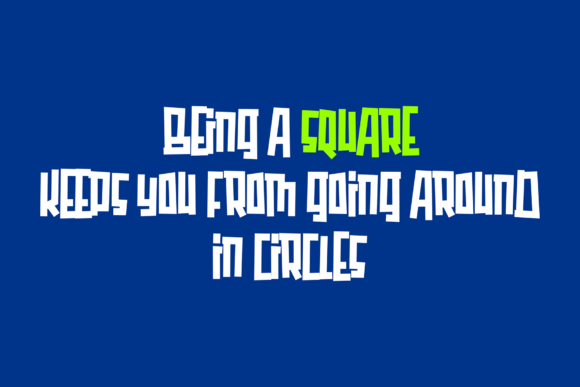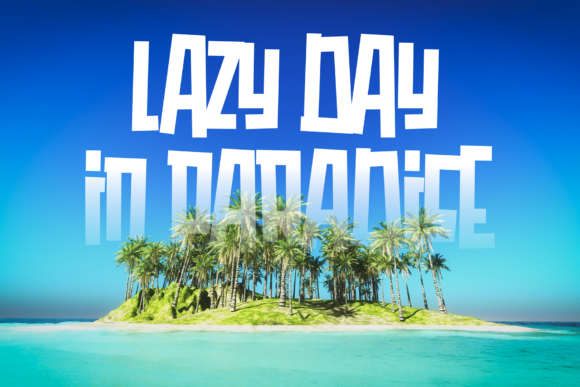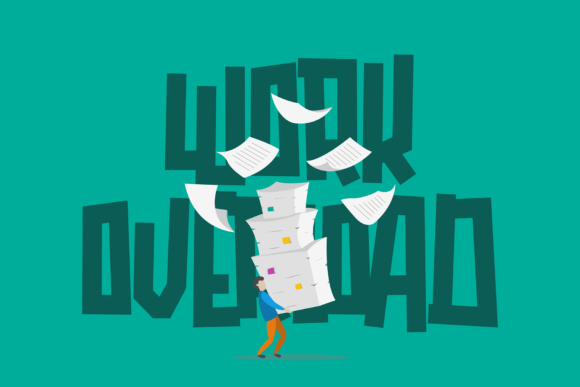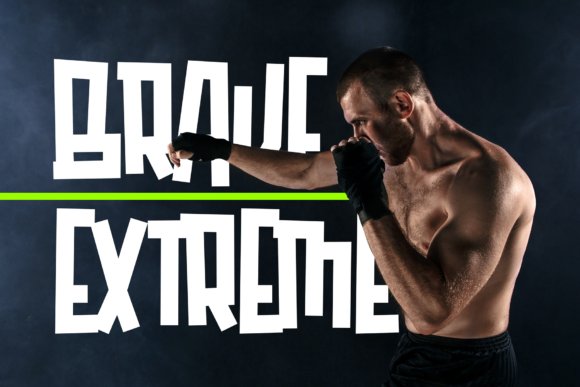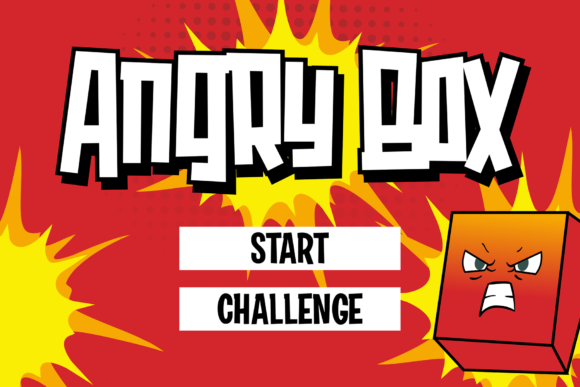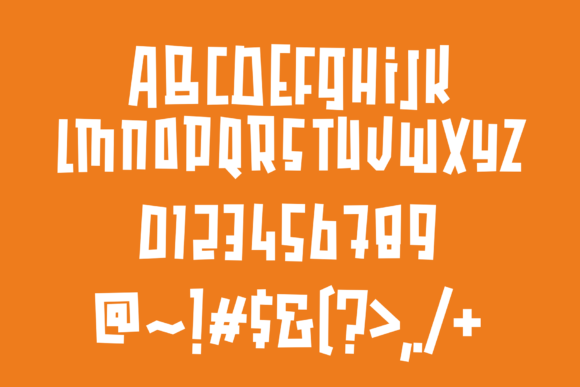
Introduction to Qubiko Font
Have you ever been brainstorming ideas for a creative project and suddenly, a spark of inspiration hits you? The perfect typography, the ideal color palette, and a dash of whimsy all come together to create something truly unique. For designers, this ‘aha’ moment is what drives us to push the boundaries of what’s possible. And that’s exactly what the Qubiko Font is all about – embracing the beauty of abstract shapes and bringing them to life in a visually stunning way.
Key Features of Qubiko Font
- Includes a variety of unique characters and glyphs, suitable for various design applications.
Honest Review: Qubiko Font
As a designer, I’m always on the lookout for high-quality design resources that can elevate my creative projects. The Qubiko Font has been a recent addition to my collection, and I’m excited to share my honest review.
What works well: ✨ The Qubiko Font is incredibly versatile, with a modern and sleek design that can be used for a wide range of applications, from branding and packaging to digital design and editorial content. The font also features a transparent background, making it easy to use in any design scenario.
What doesn’t work well: ⚠️ While the Qubiko Font is generally high quality, I’ve noticed that the font can be a bit too bold for some designs. Additionally, the font’s character set is not as extensive as some other fonts in my collection.
Here are some key features of the Qubiko Font:
- Modern and sleek design
- Wide range of applications
Overall, I’m impressed with the Qubiko Font’s potential and versatility. While it may have some limitations, it’s a solid addition to any designer’s collection, especially for those looking for a modern and stylish font for their creative projects.
Tips for Getting the Most Out of Qubiko Font
To get the most out of the Qubiko Font, use it in conjunction with a high-quality image or design element. Experiment with different font sizes and colors to create a visually appealing design. You can also use the font with a transparent background to add a touch of elegance to your creative project.
Common Use Cases for Qubiko Font
The Qubiko Font is a versatile design resource that can be used in a variety of creative projects, including logos, brochures, business cards, and more. Its unique design and high quality make it an excellent choice for designers looking to add a touch of sophistication to their work.
Alternatives to Qubiko Font
The Great Vibes Font is a high-quality, elegant script font ideal for creative projects requiring a touch of sophistication. It’s perfect for invitations, logos, and other design elements where a refined look is desired. This font features a transparent background and is available for free download, making it a great alternative to Qubiko Font.
Compared to Qubiko Font, Great Vibes Font has a more refined and elegant feel, making it suitable for high-end design projects. While Qubiko Font is great for casual and playful designs, Great Vibes Font excels in creating a more sophisticated and luxurious atmosphere.